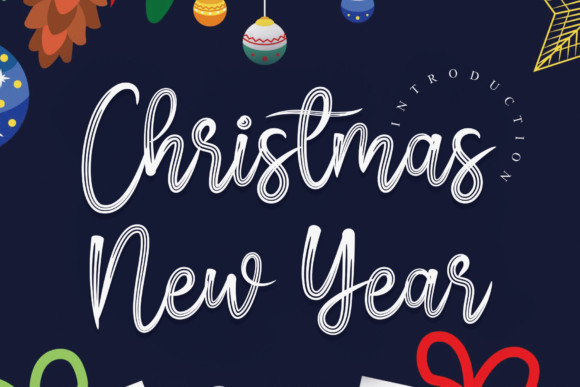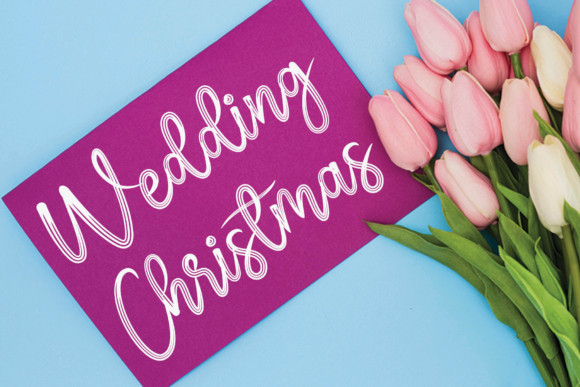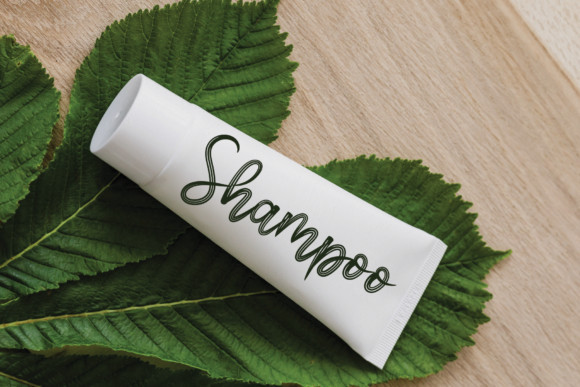
Christmas New Year Font
Christmas New Year is an elegant and dainty handwritten font that features sweet and delicate swashes. It looks stunning on wedding invitations, thank you cards, quotes, greeting cards, logos, business cards and every other design which needs a handwritten touch.